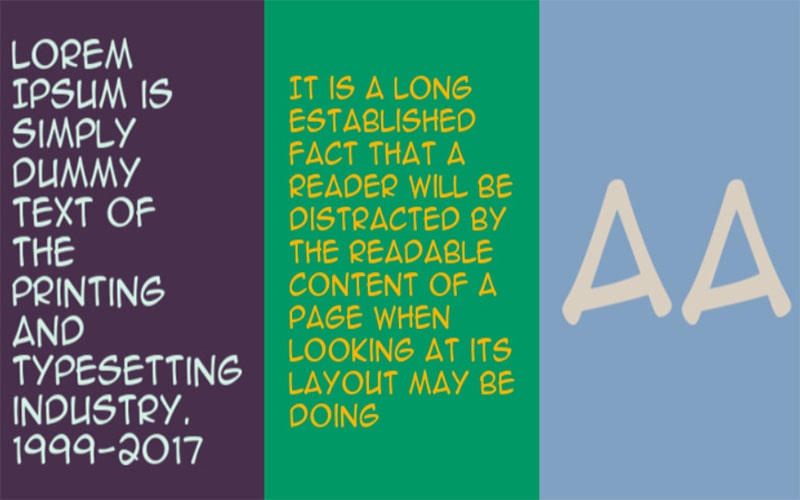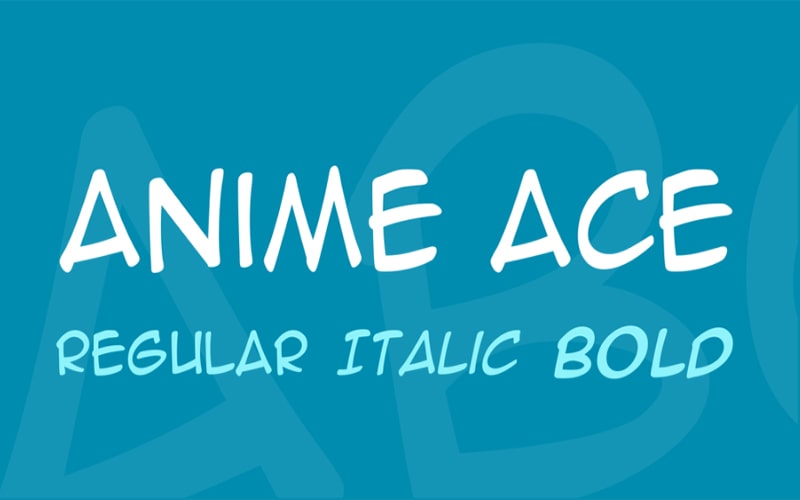
Anime Ace Font is a Comic, Cartoon typeface. Nate Piekos took charge to design this font for the first time and launched it in Blambot Comic Fonts.
This is part of Blambot’s Dialogue Collection and specially designed for use as the main fonts for your character’s speech balloons updated on October 04, 2006.
This is a preview font for testing. Nate Piekos is the creator of Blambot. He is a good graphic designer, typographer, and award-winning letterer. He is also the author of the Essential Guide to Comic Book Lettering.
And Blambot is the name of an online type foundry and is the alias of typographer Nate Piekos. Blambot specializes in typefaces for use as lettering in both print and online comics.
This excellent font has come with 82 characters set like 26 uppercase letters, 26 lowercase letters, and 10 numbers. In addition to the ligatures of the uppercase and lowercase schemes, 20 special symbols are available, including punctuation marks.
Anime Ace Font